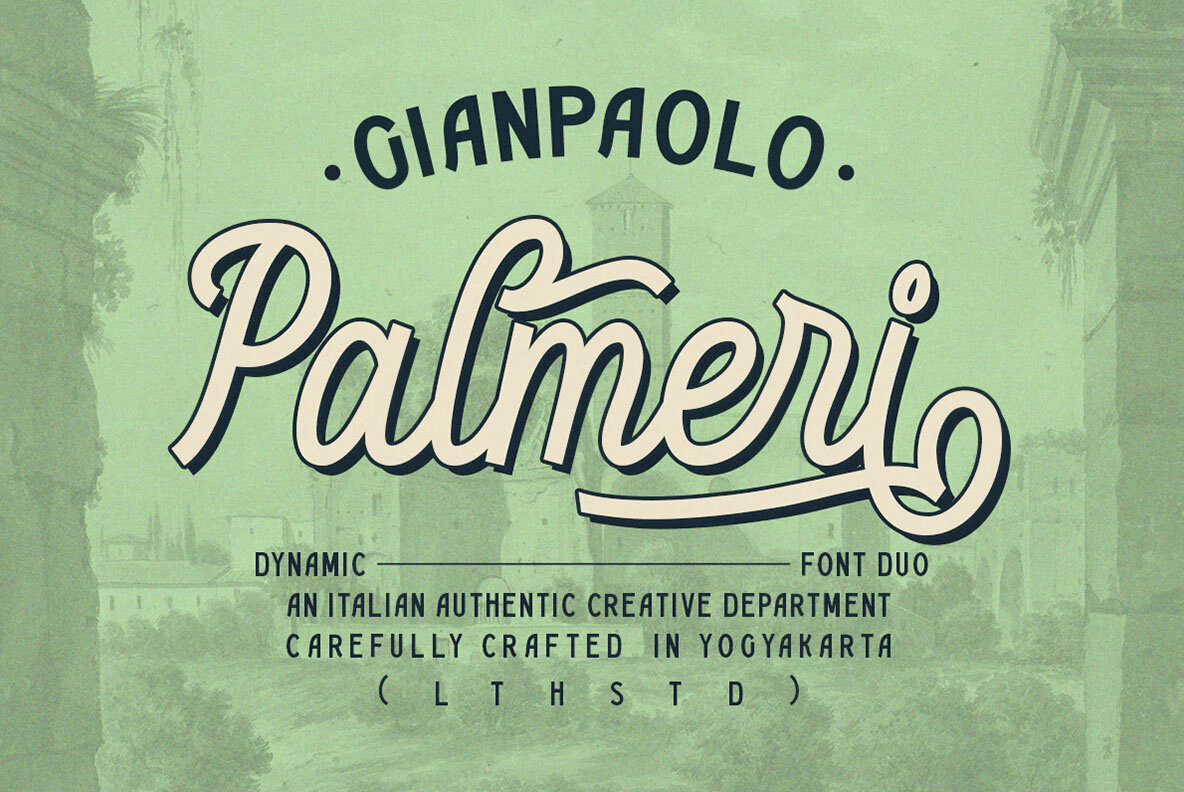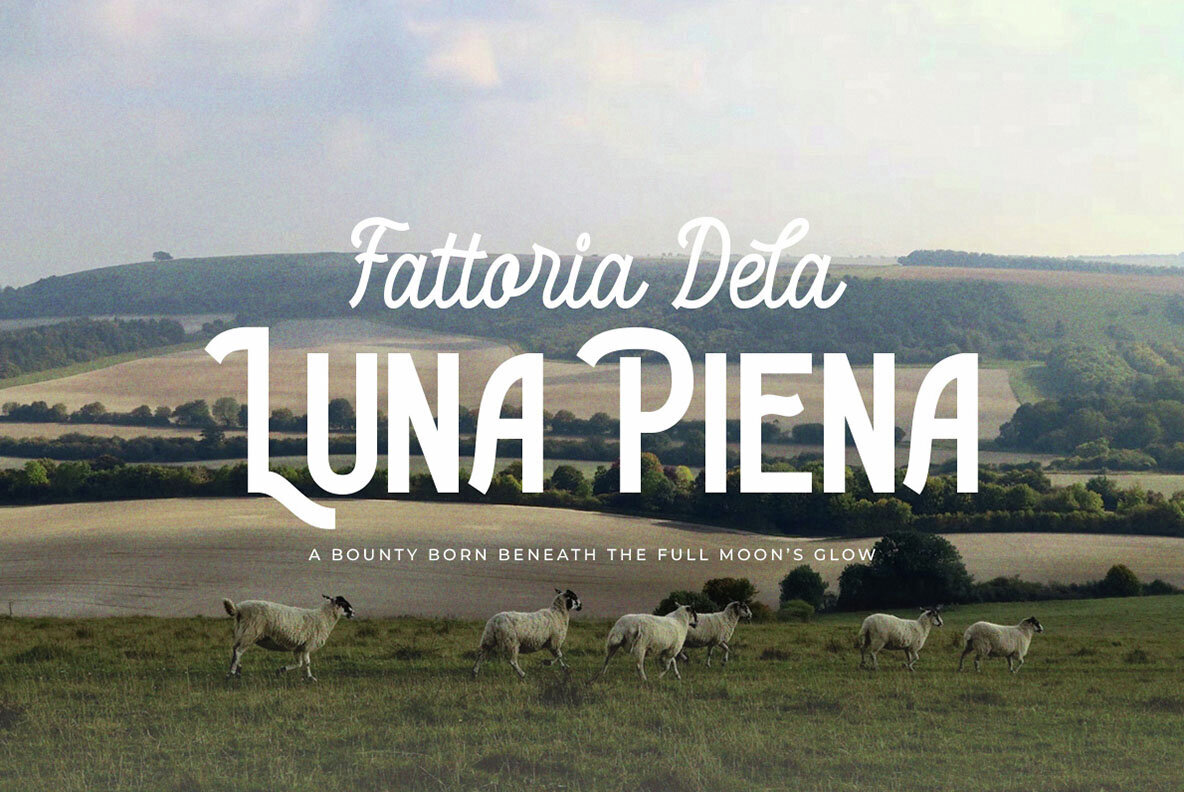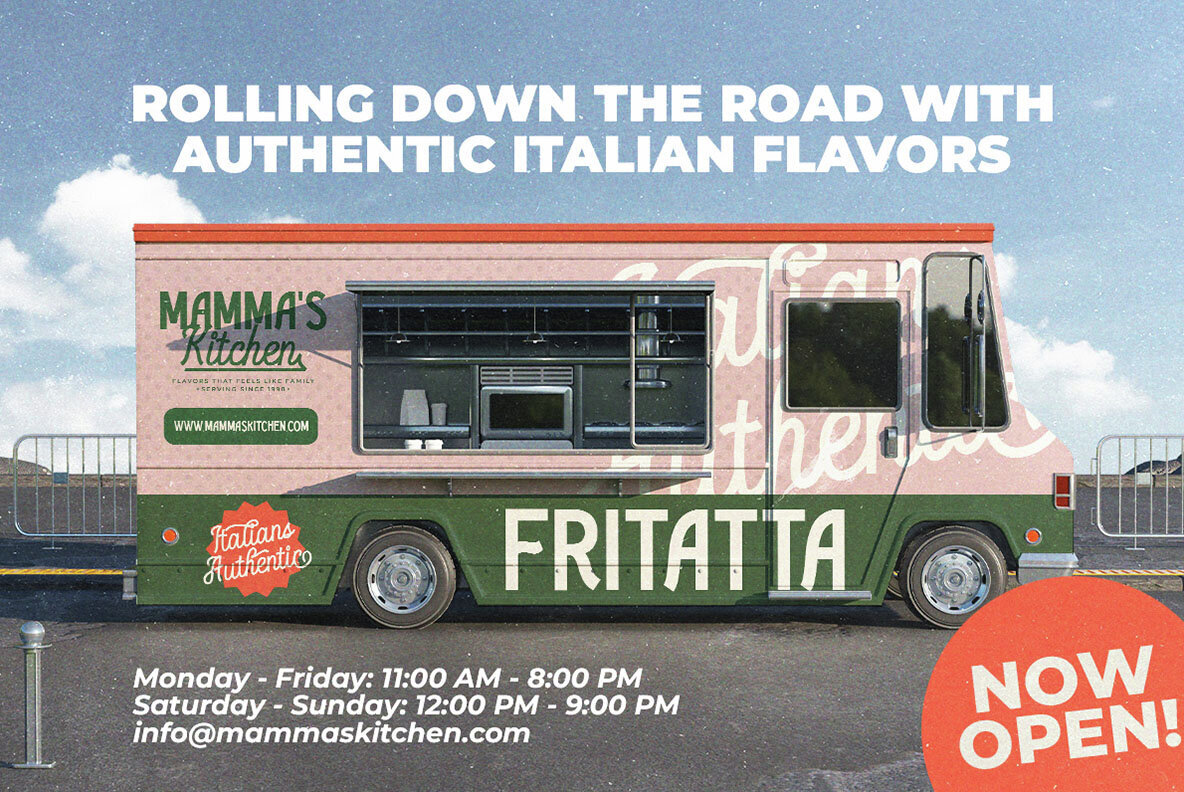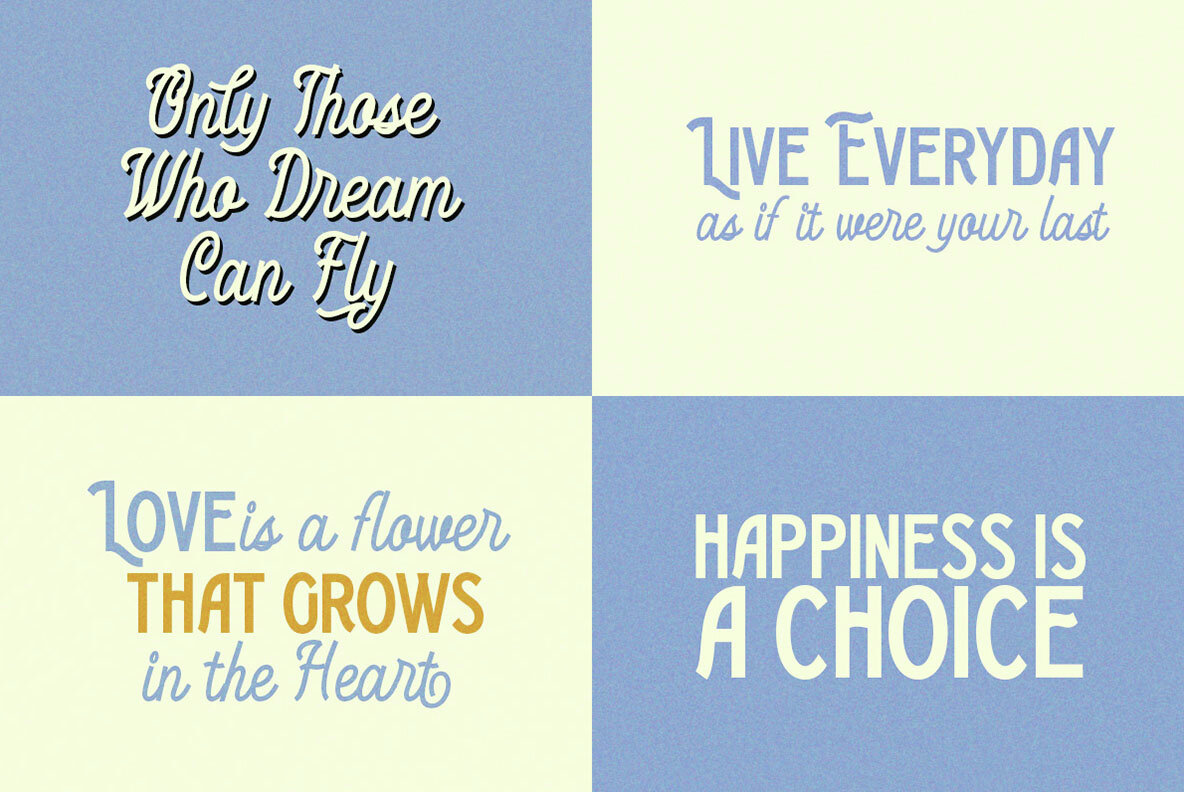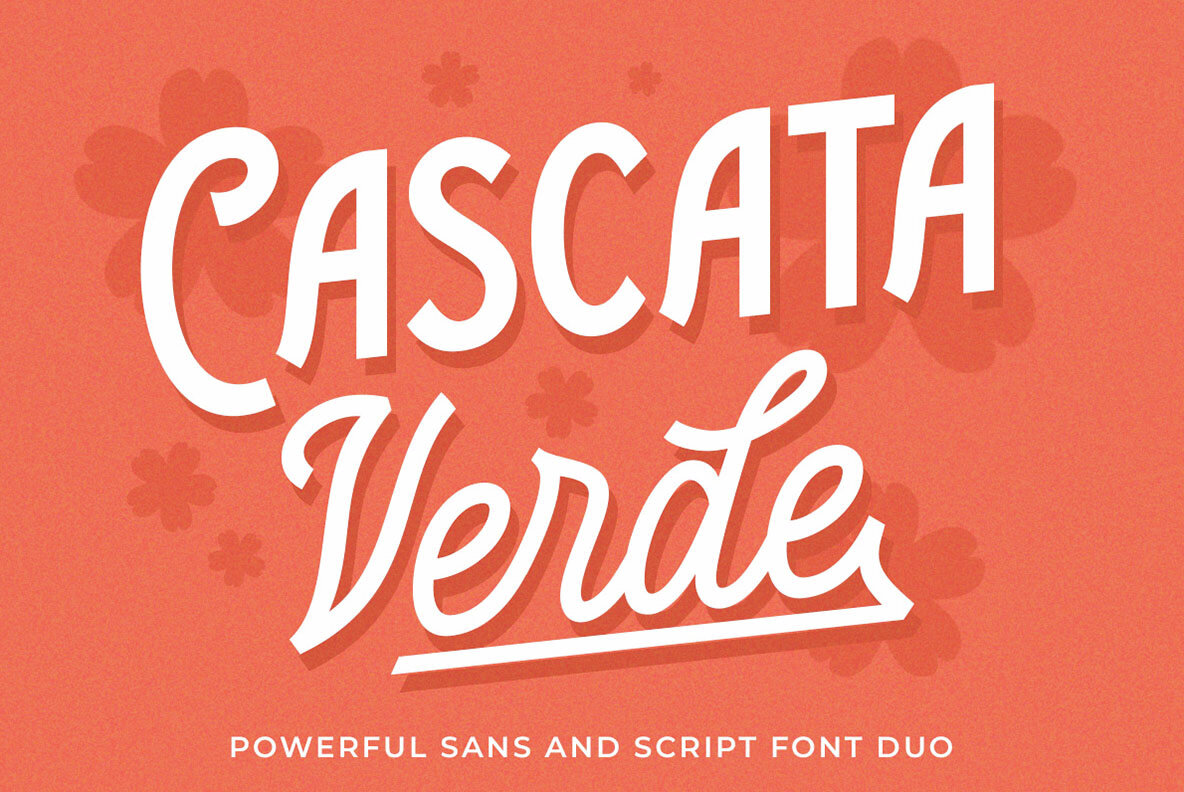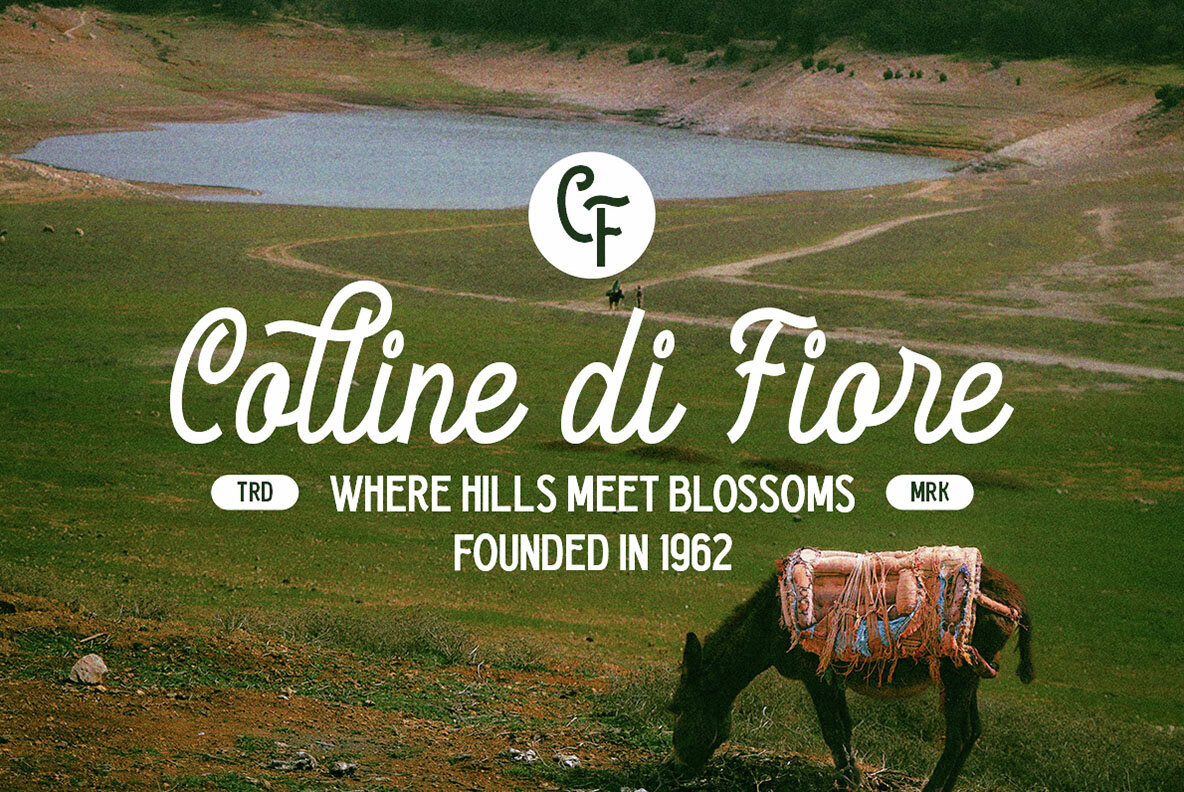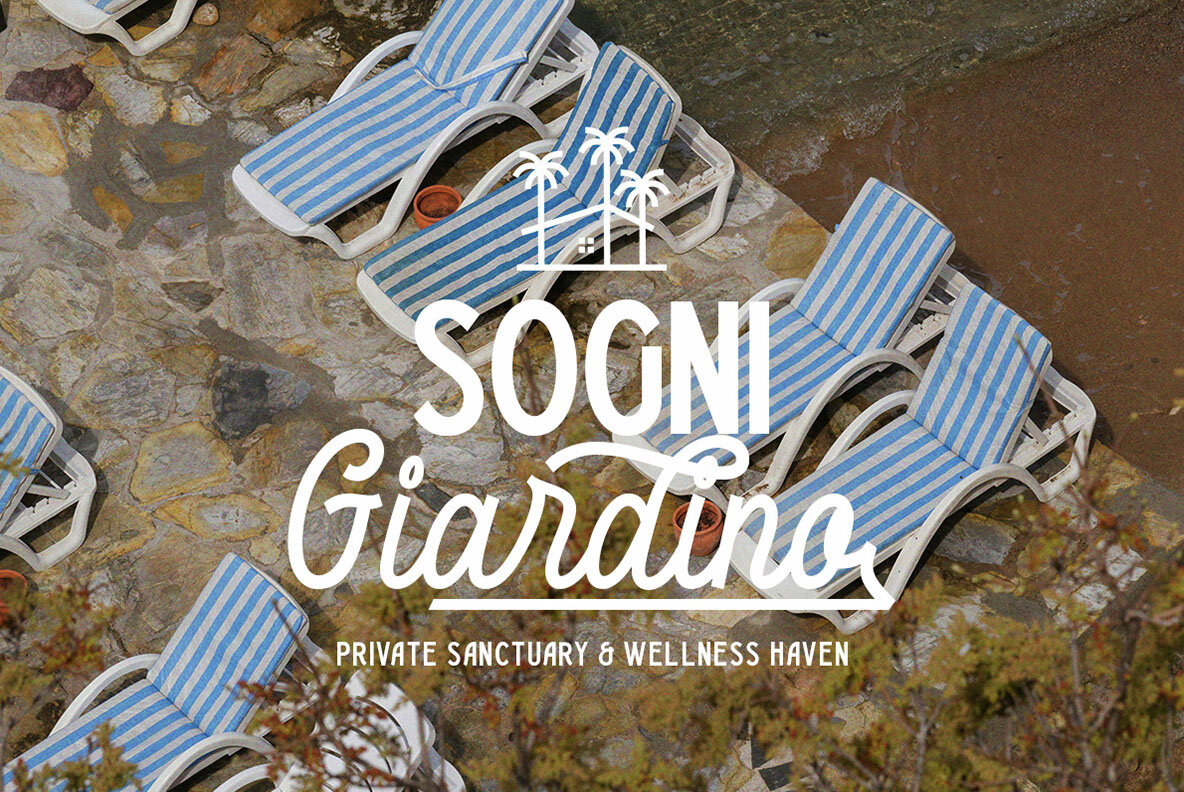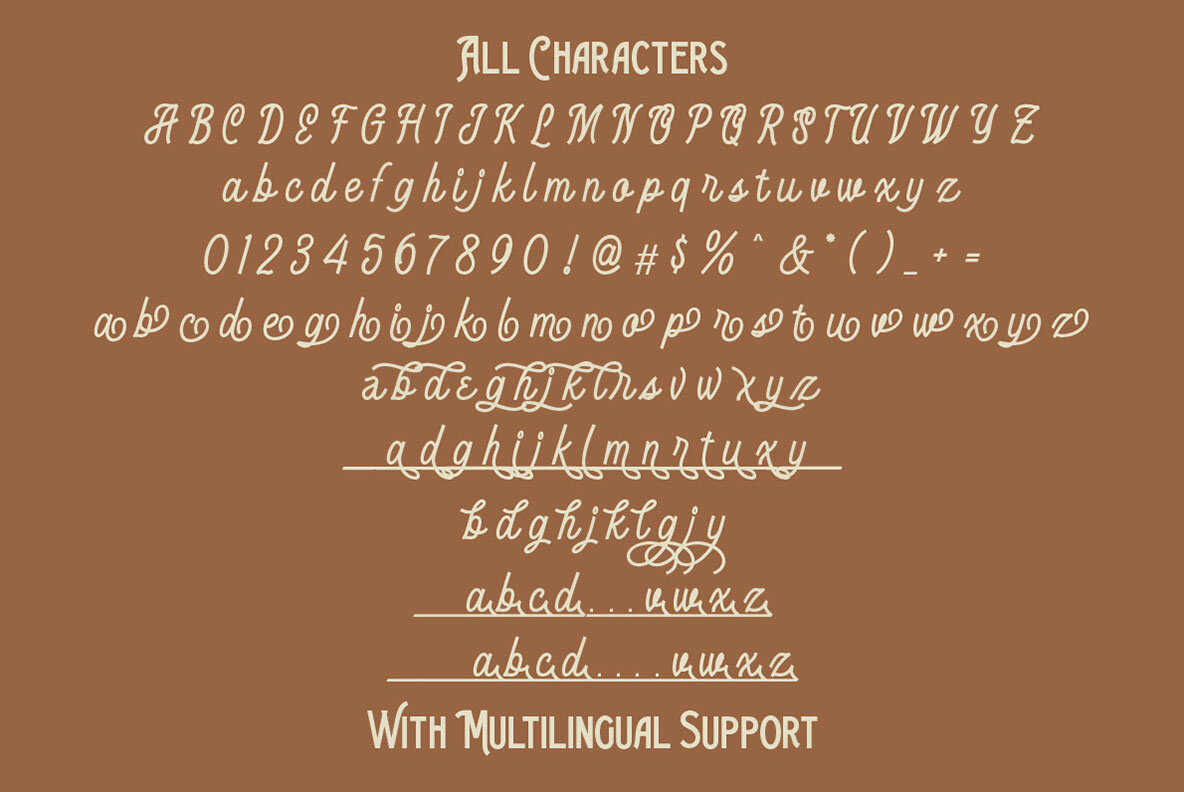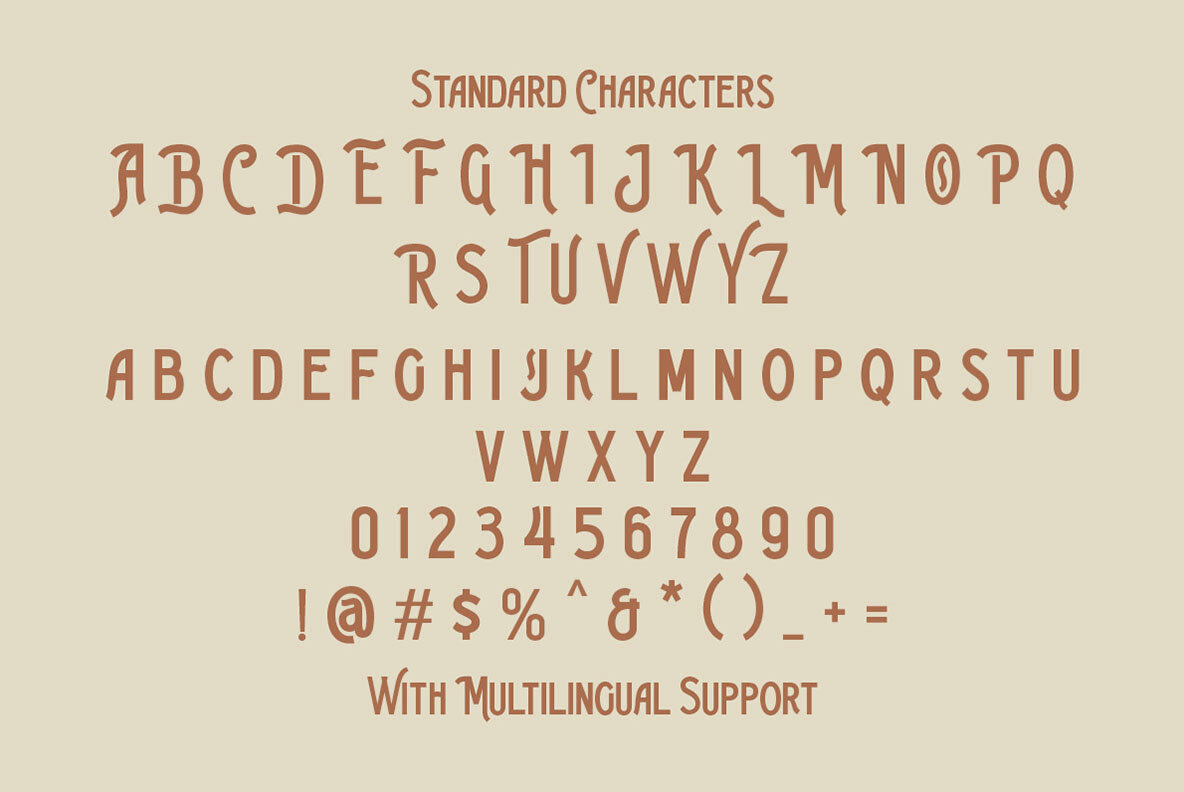
Gianpaolo Palmeri Font
Gianpaolo Palmeri is a versatile font duo offering a blend of vintage-inspired aesthetics with a contemporary edge. Combining a bold, monoline script with a strong, clean sans-serif option, this font is ideal for branding, logos, packaging, posters, and editorial designs. The font's smooth curves, stylish swashes, and subtle retro elements deliver a sophisticated and authentic look, reminiscent of classic Italian design.
This font includes uppercase and lowercase characters, numbers, punctuation, alternate characters, and multilingual support. Additionally, it is PUA encoded. To fully utilize its features, we recommend using software that supports OpenType features and Glyphs panels, such as Adobe applications and Corel Draw. Gianpaolo Palmeri is perfect for projects that need a timeless yet modern appeal, ensuring your designs stand out with an exquisite blend of classic and contemporary style.